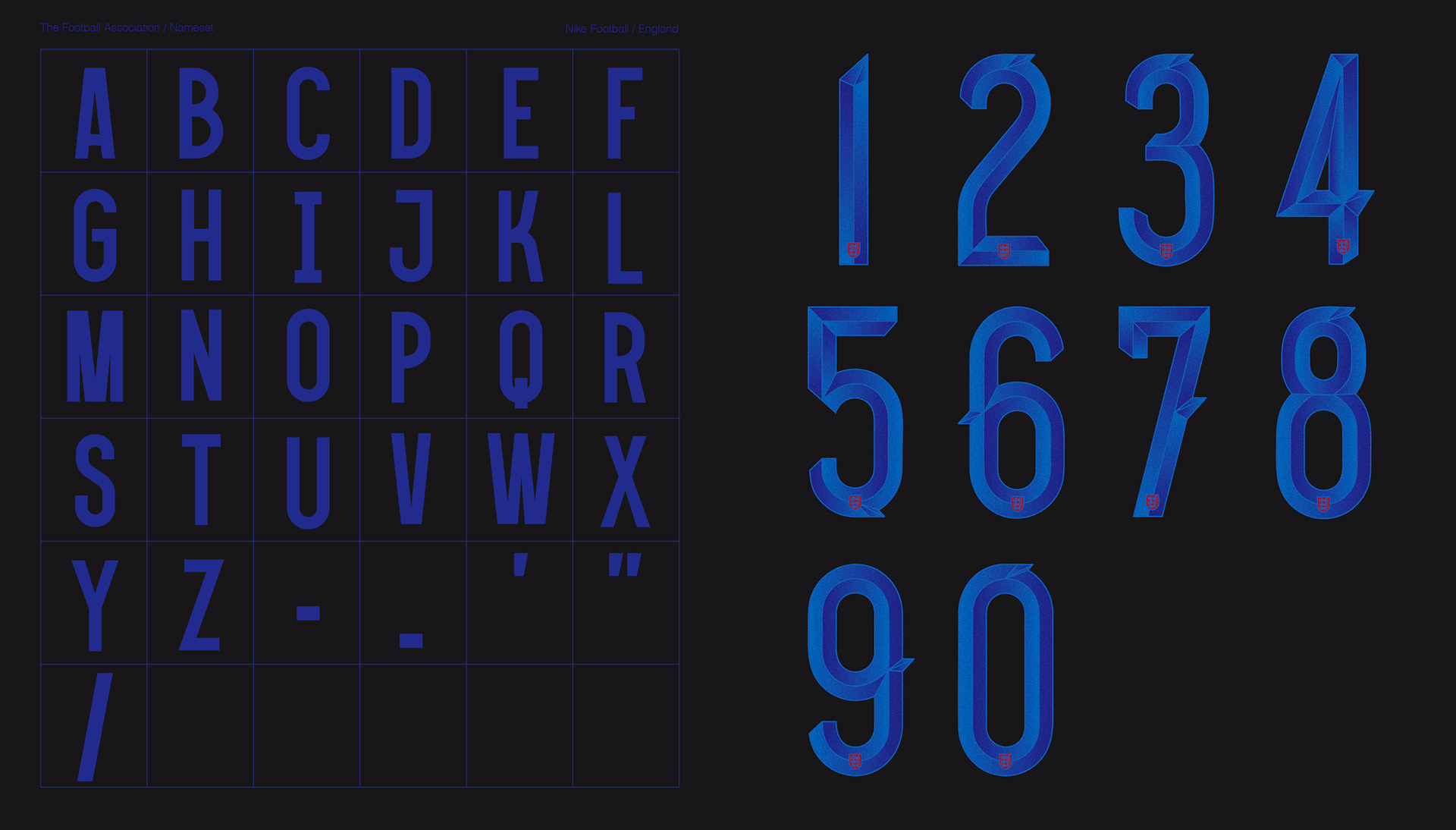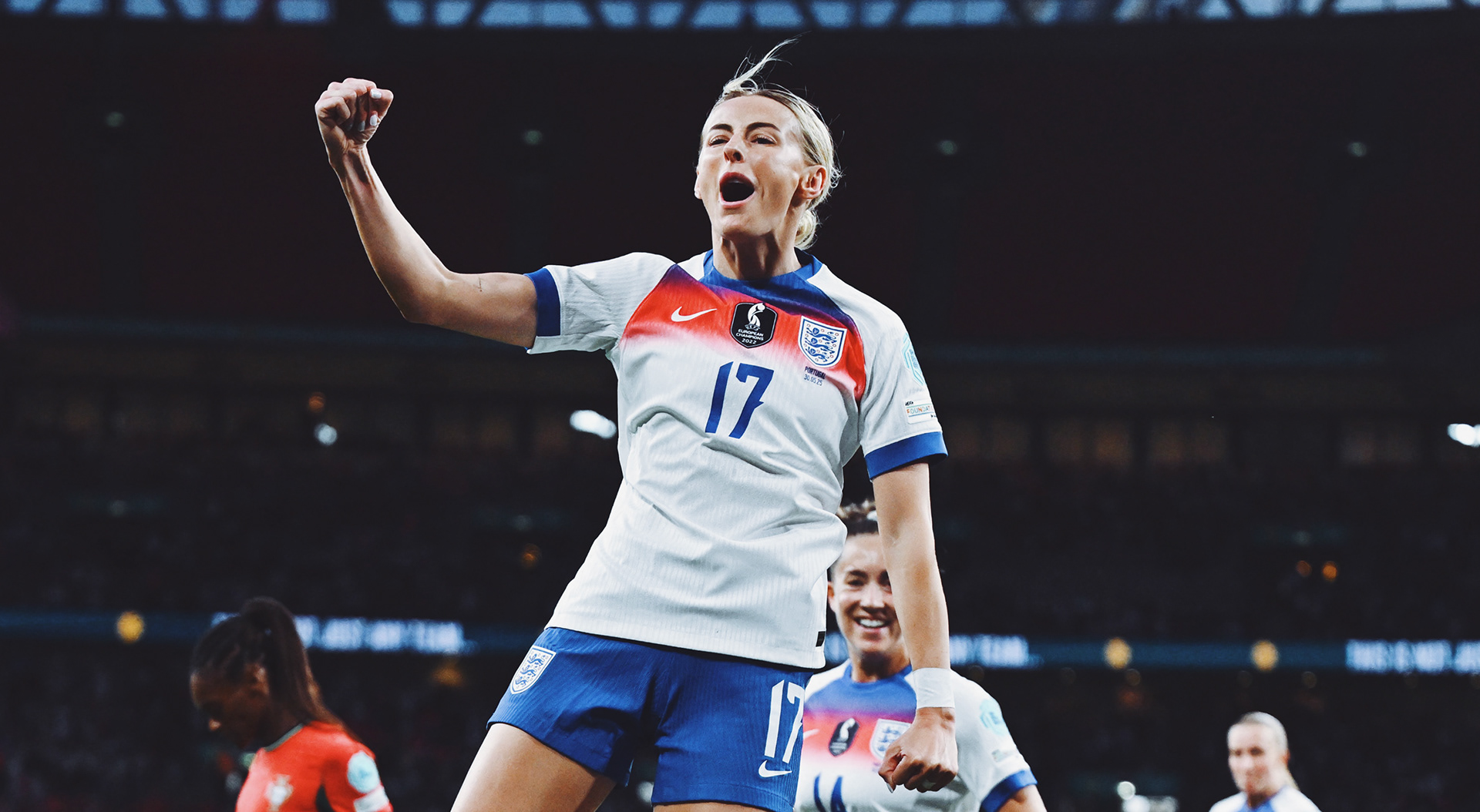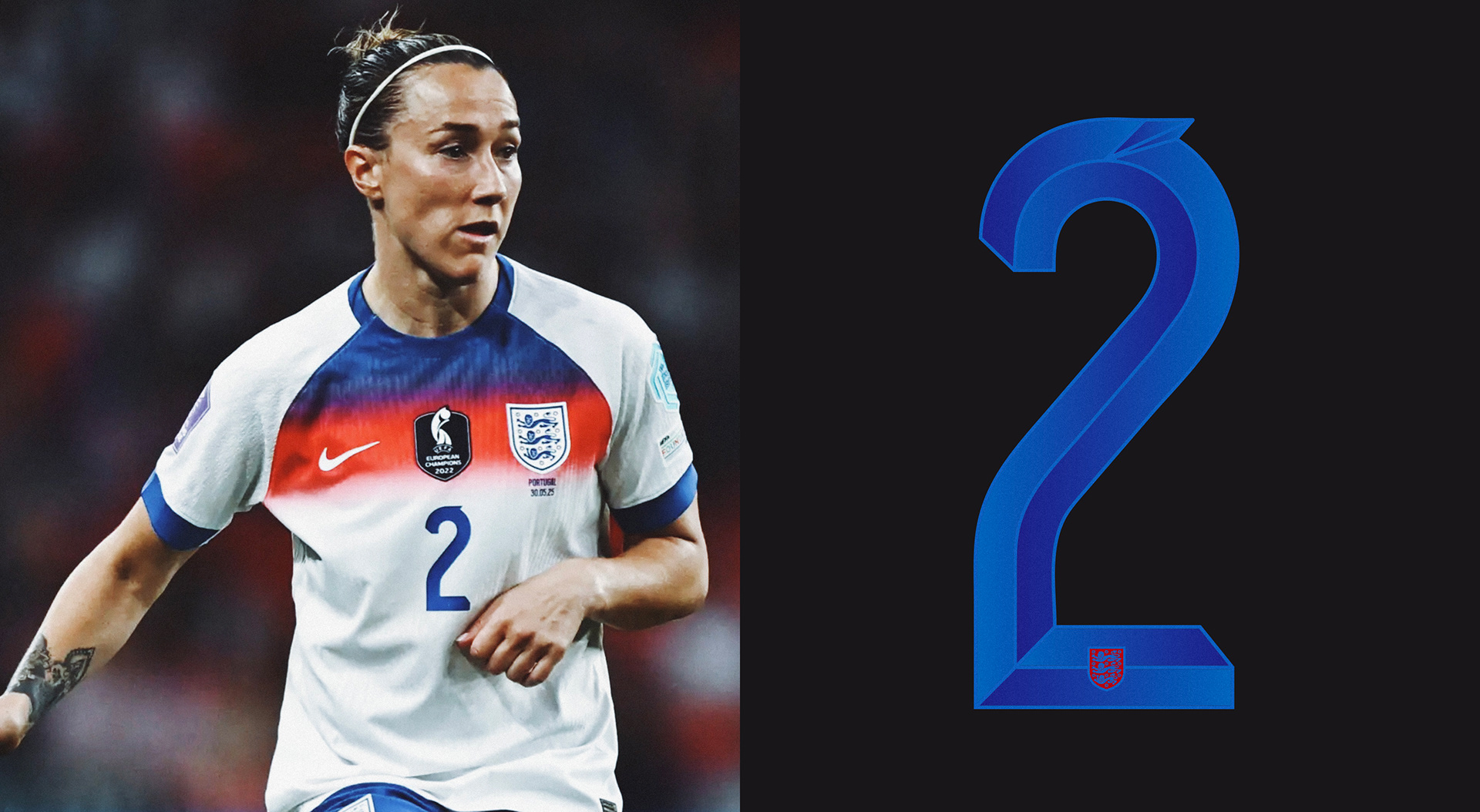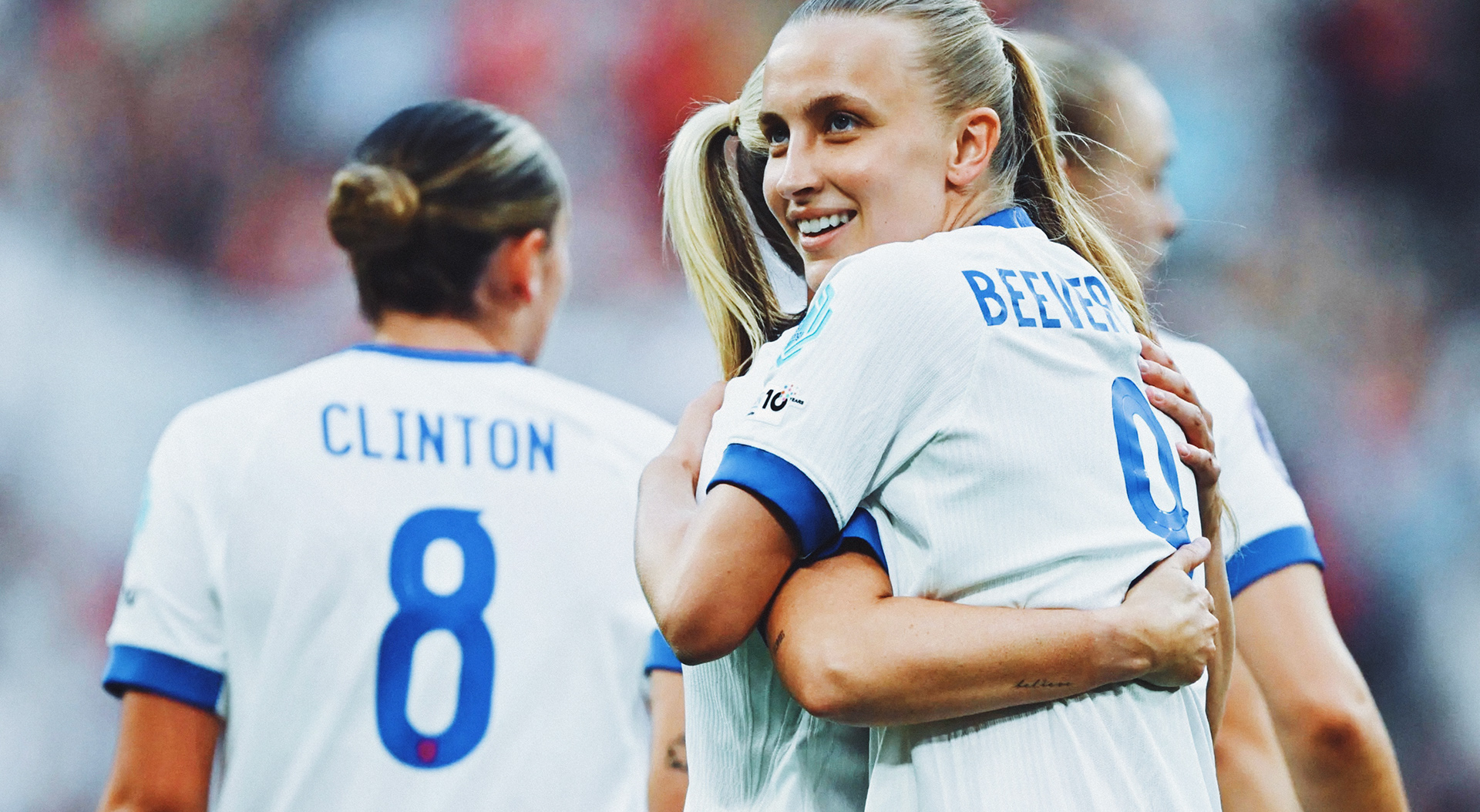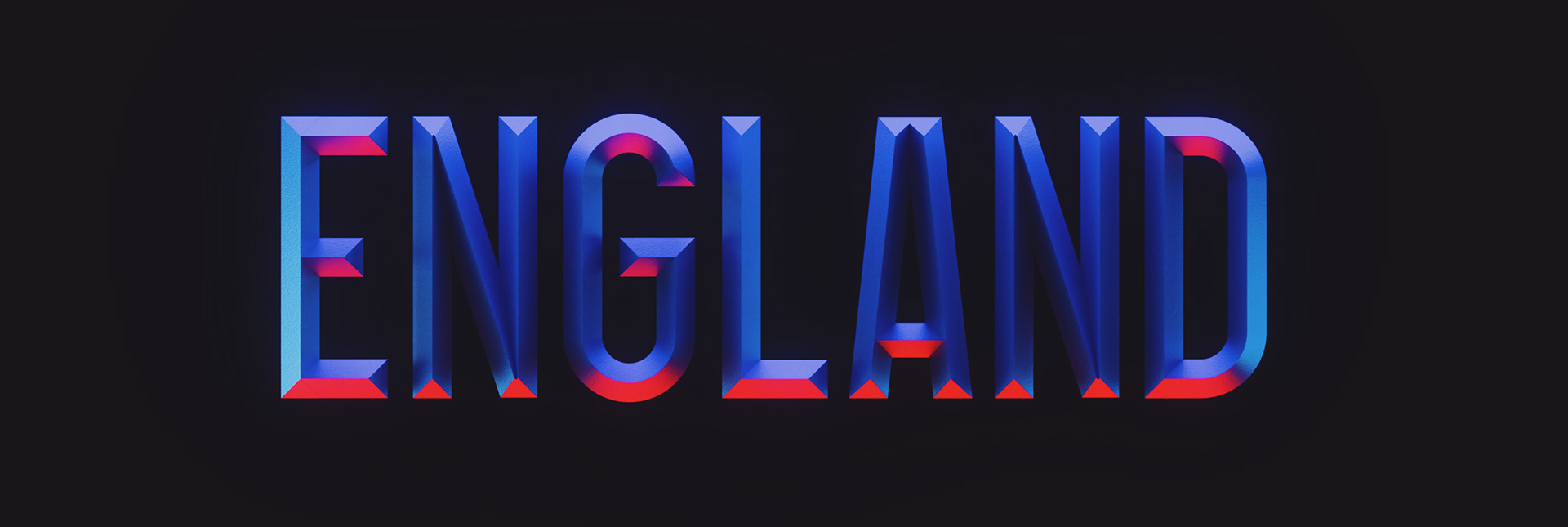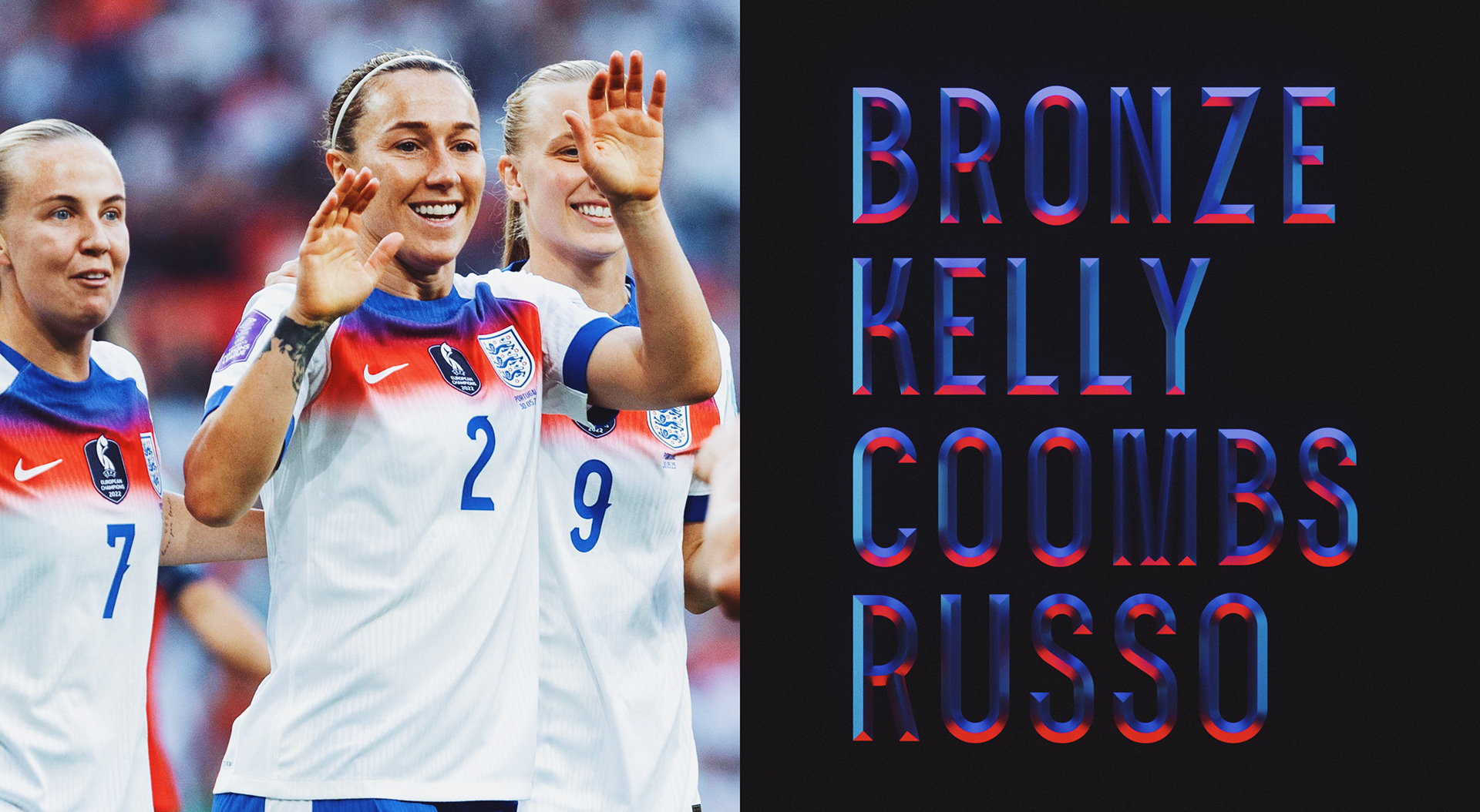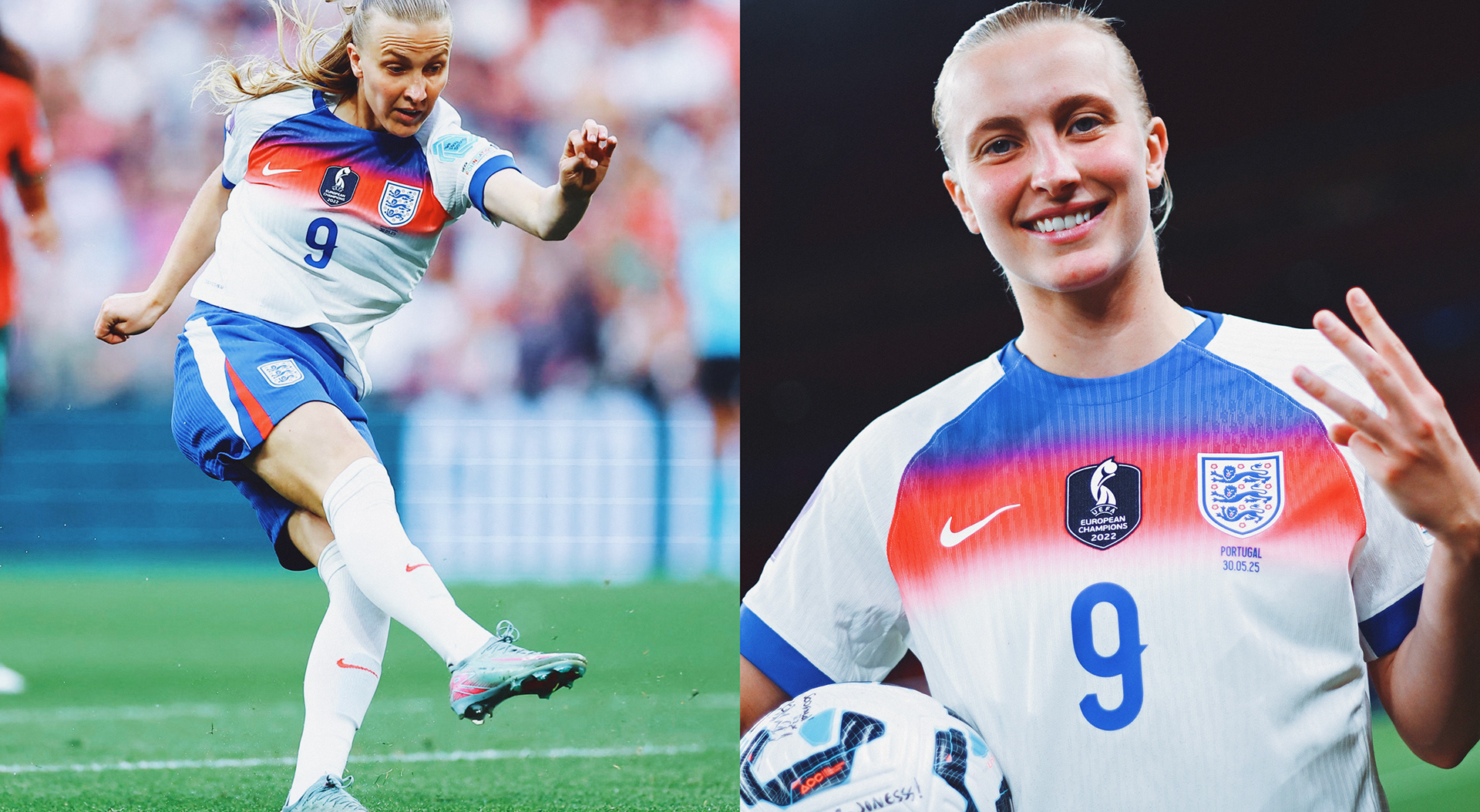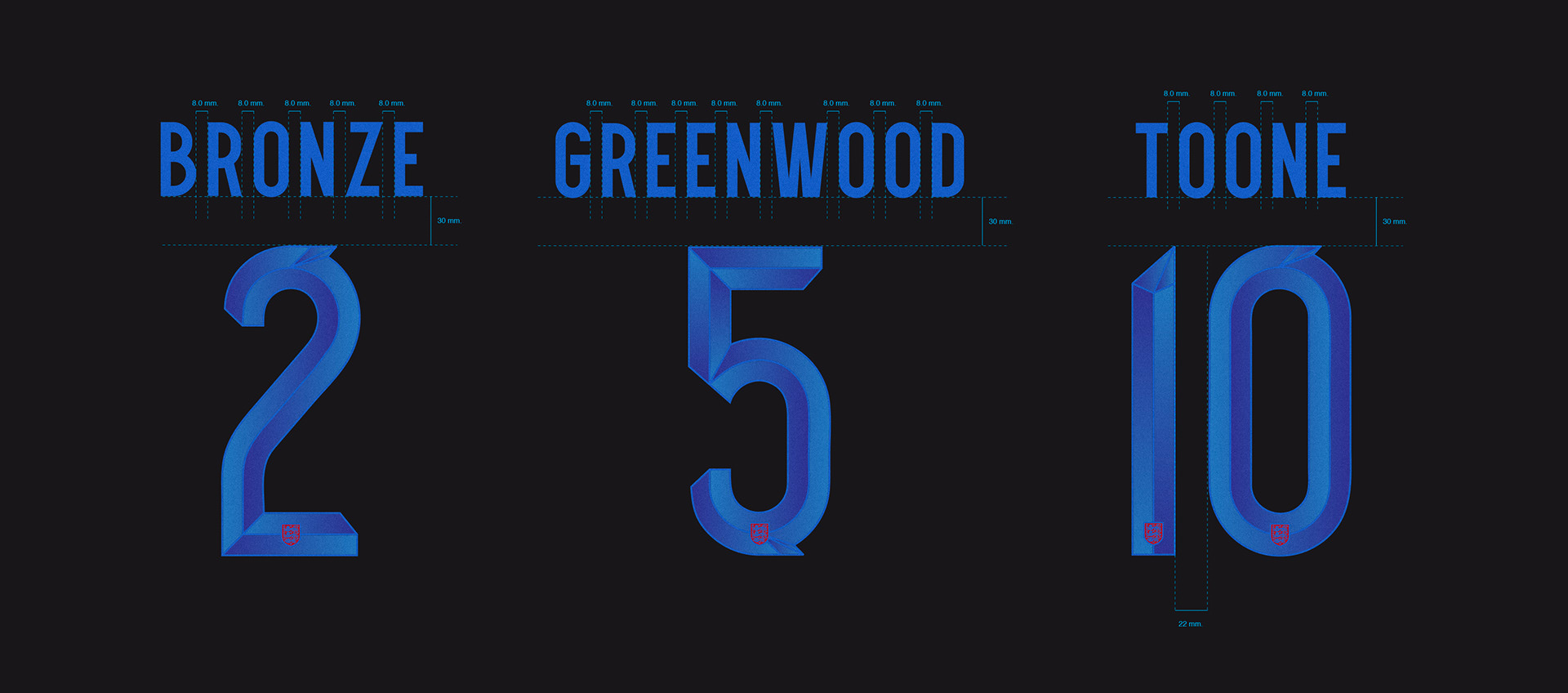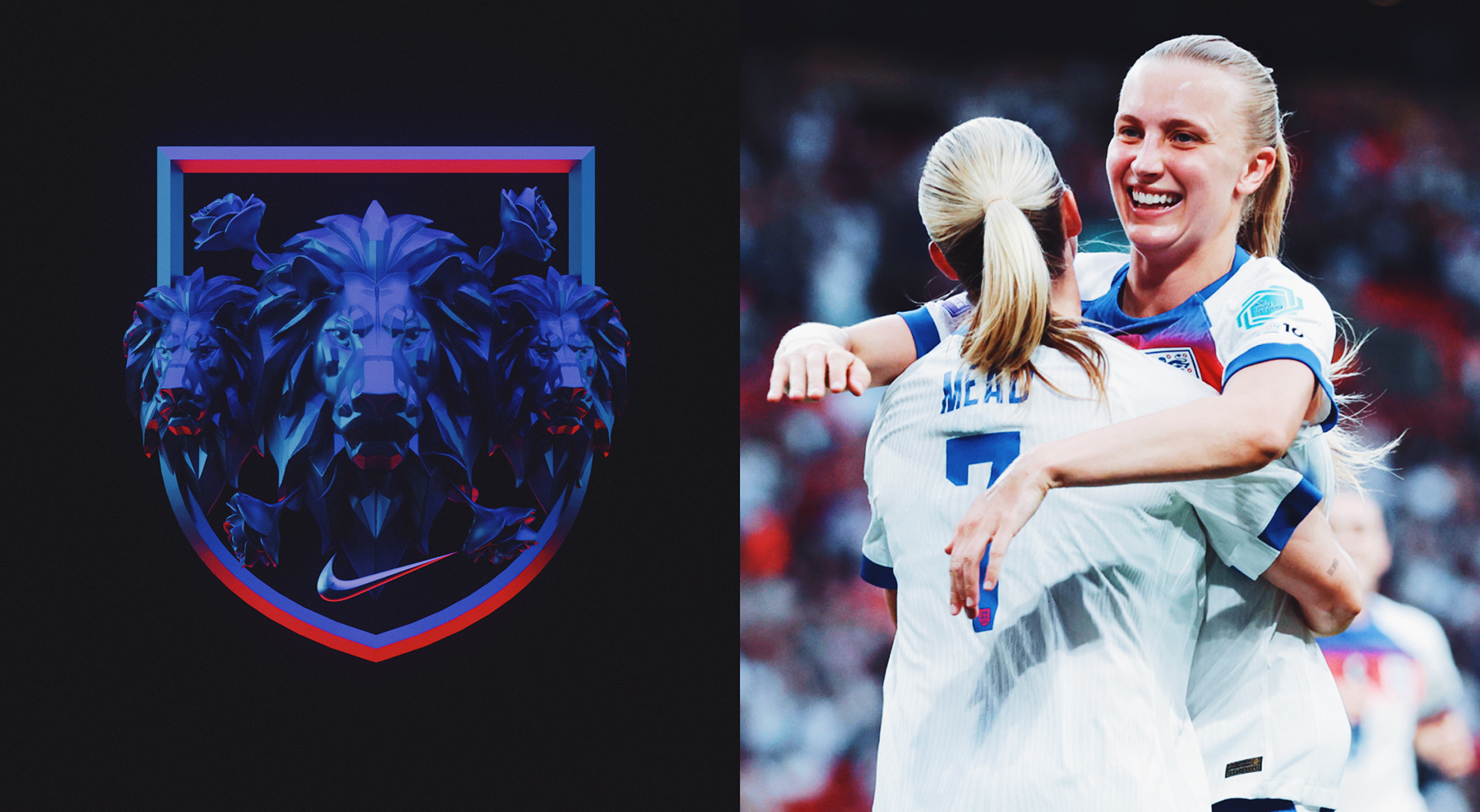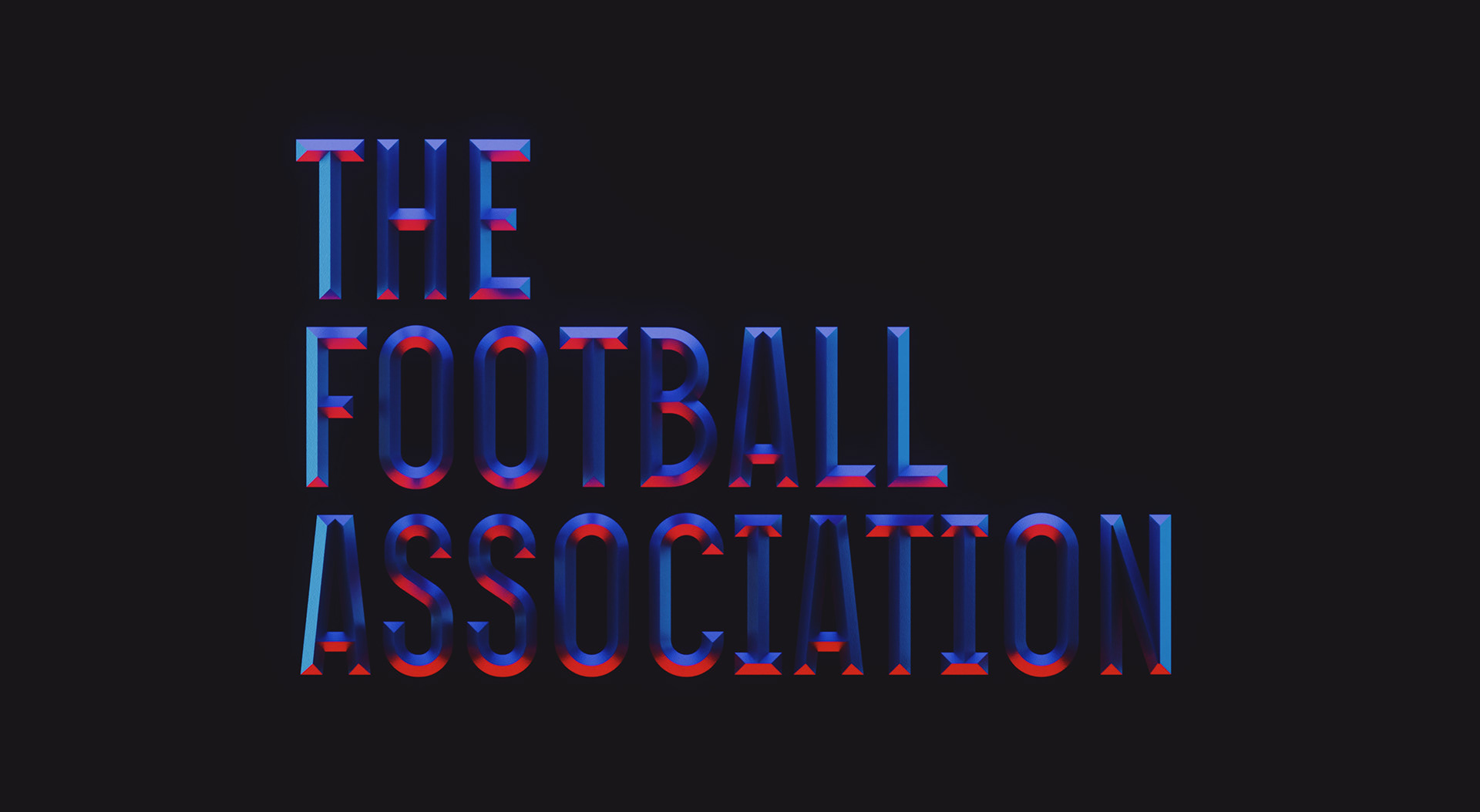
Inspired by the history and spirit of a proud nation, we crafted a typeface that pays tribute to the timeless elegance of 1960s British design, reimagined with the strength and character of the modern game.
With bold lines and classic details, this type captures the footballing heritage of an iconic federation, while embodying the pride, courage, and identity of the Lionesses who represent England today with fearless determination.
Inspirada en la historia y el espíritu indomable de una nación, nace una tipografía que rinde homenaje a la elegancia atemporal del diseño británico de los años 60, renovada con la fuerza y el carácter del presente.
Con líneas firmes y detalles clásicos, esta fuente refleja la tradición futbolera de una federación icónica, al mismo tiempo que encarna el orgullo, la valentía y la identidad de las Leonas que hoy representan a Inglaterra con coraje y determinación.
Typeface Designer:
Luis Callegari